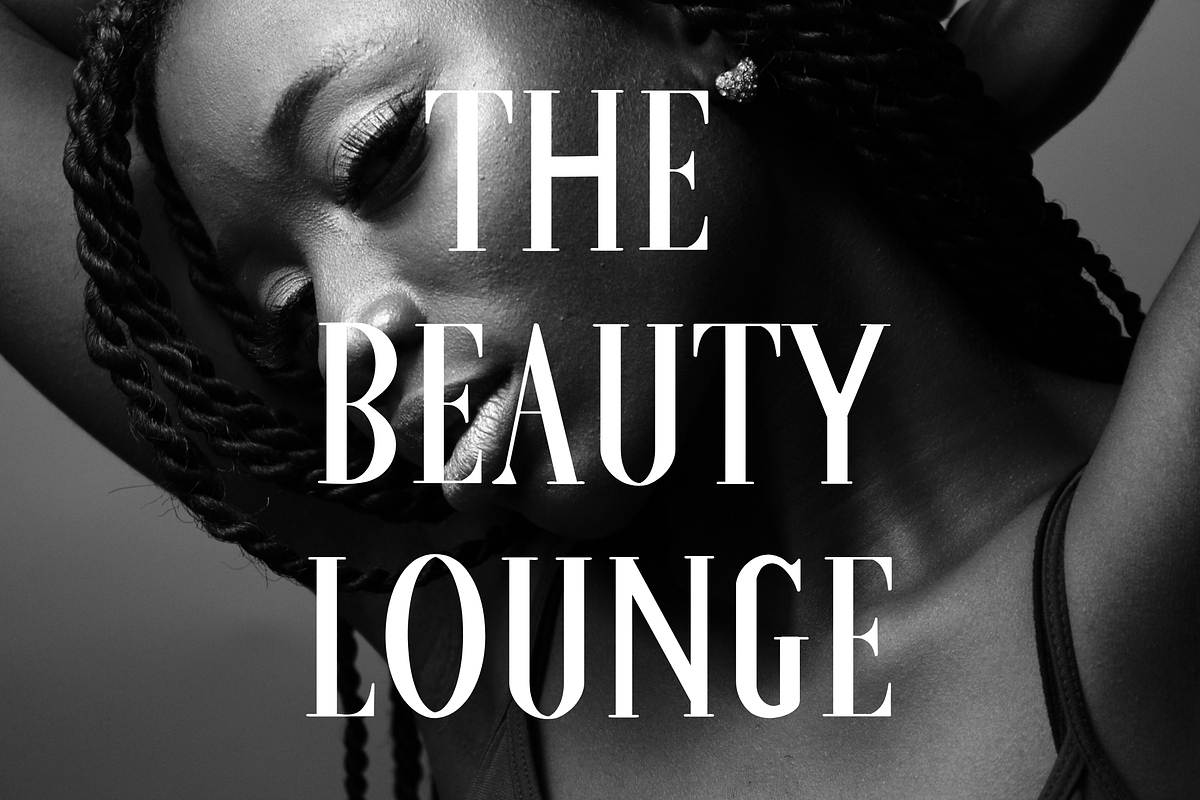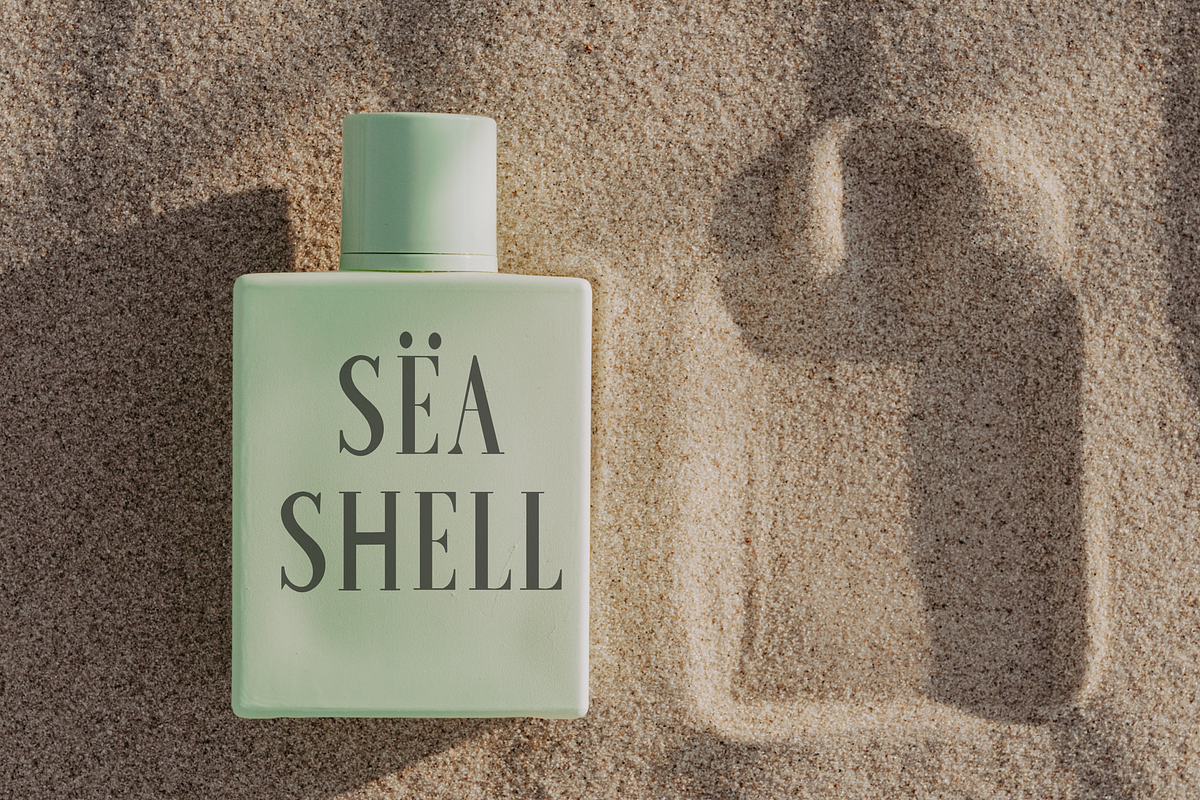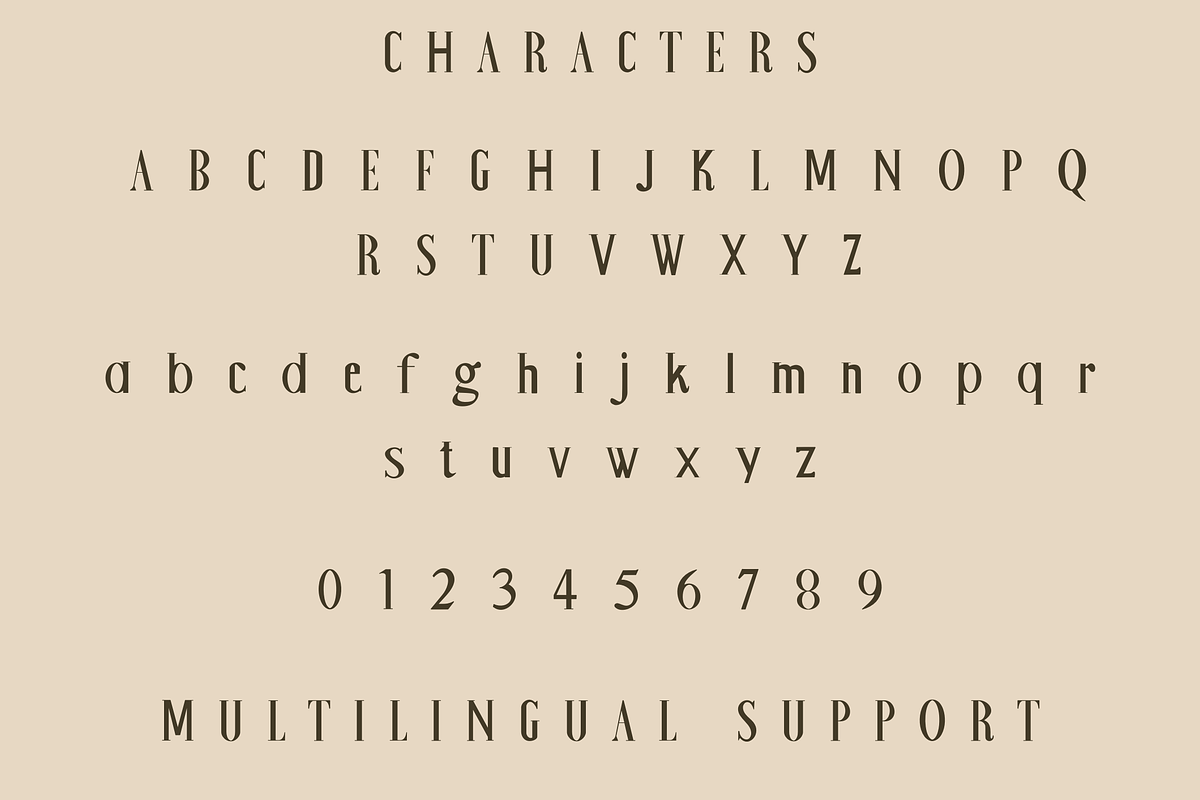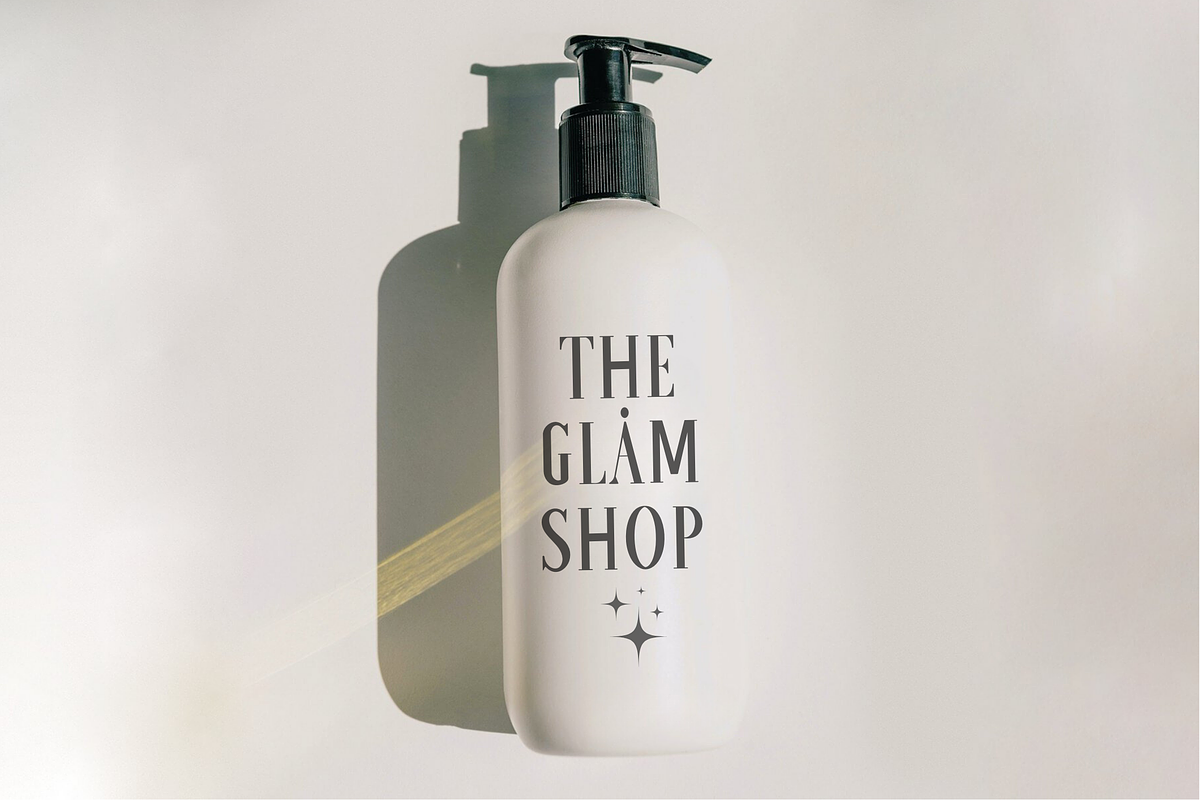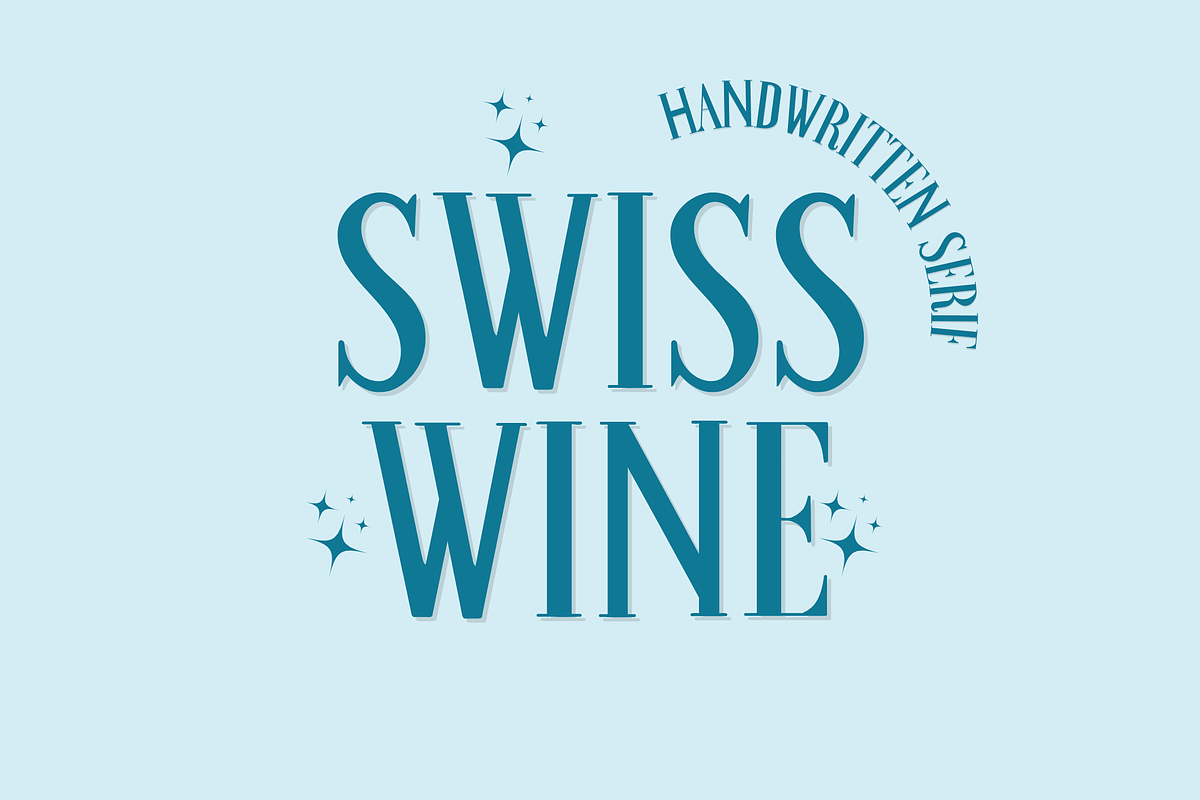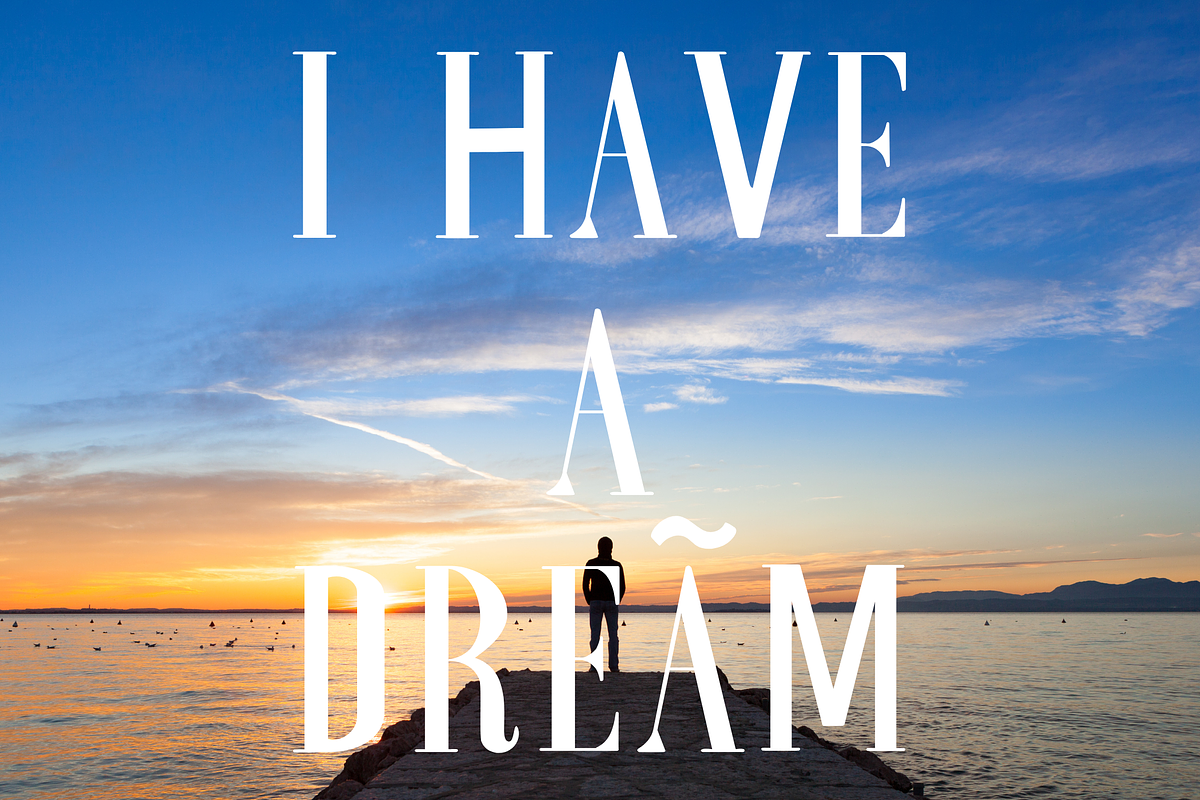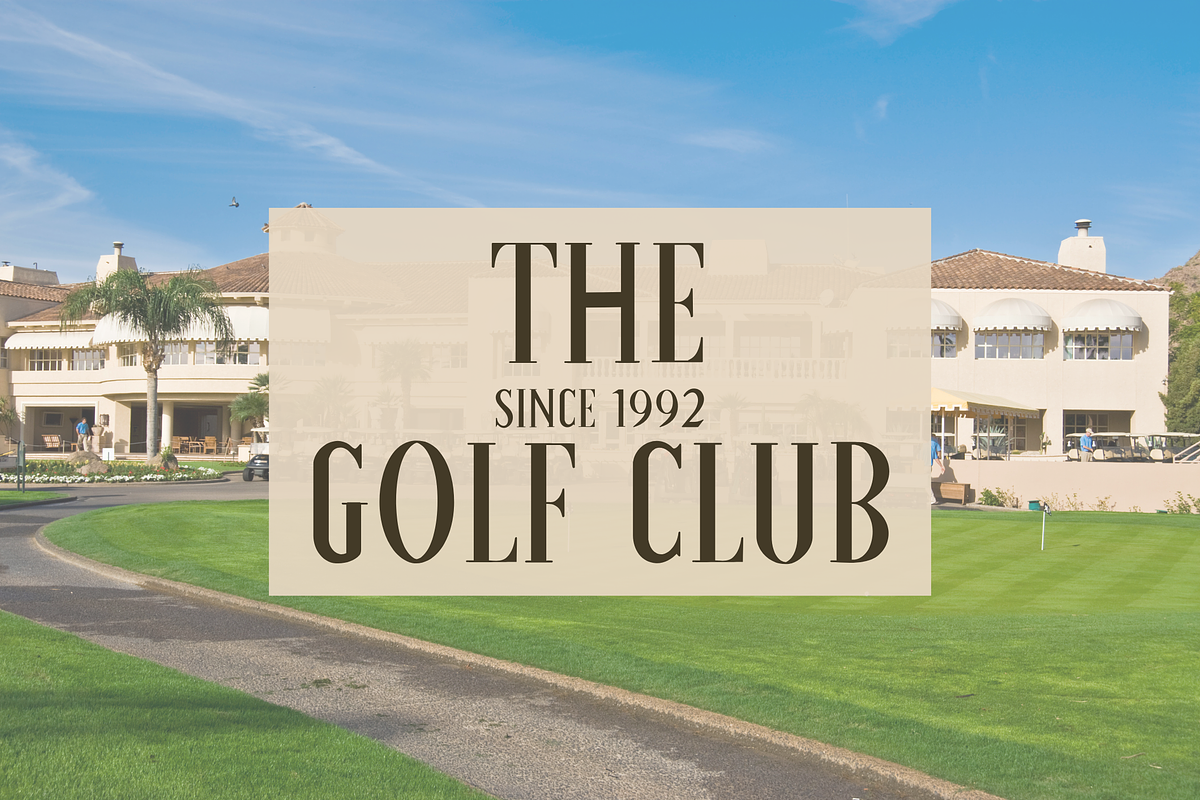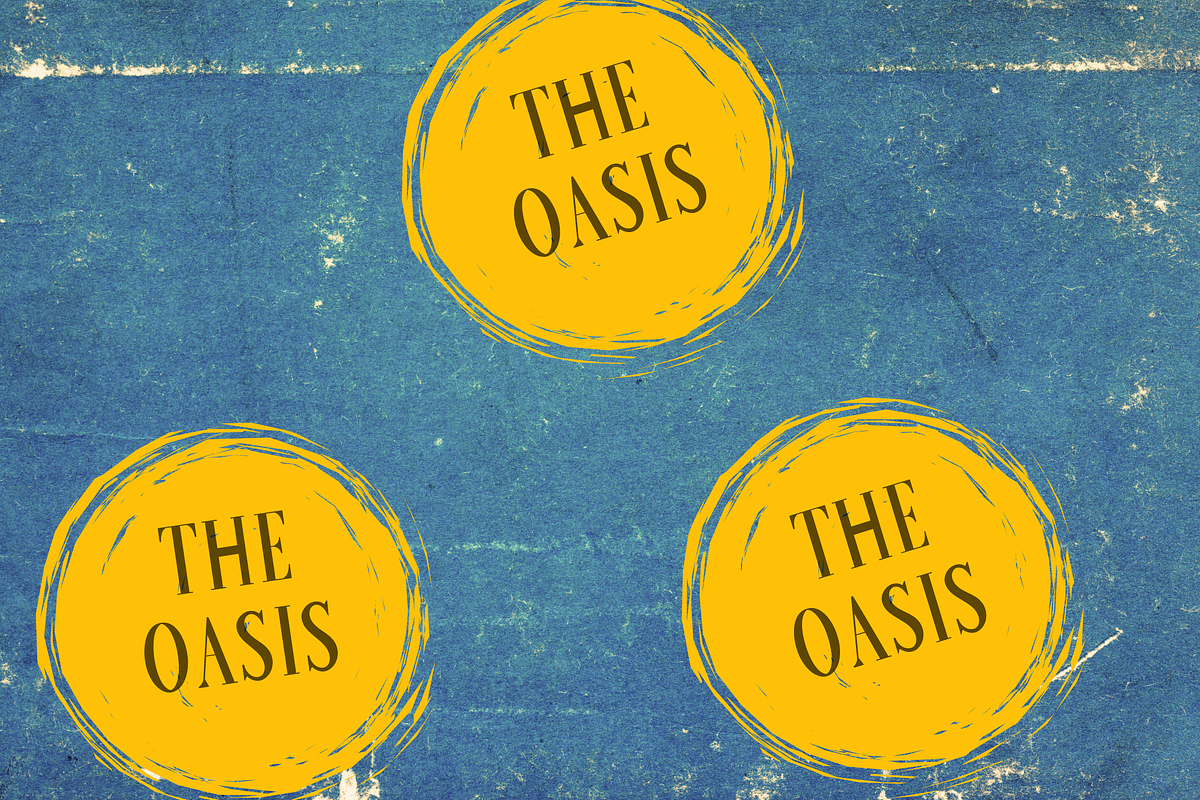
Swiss Wine - Classic Handmade Serif.
Swiss wine font is a timeless classic serif font designed for elegance and sophistication. With its refined letterforms and graceful curves, this font is perfect for branding, editorial design, invitations, packaging, and luxury projects. Whether you're creating a vintage-inspired look or a high-end modern design, Swiss wine brings a touch of class and readability to your work.
Features: Uppercase, Lowercase, Numbers & punctuation & Multilingual support.